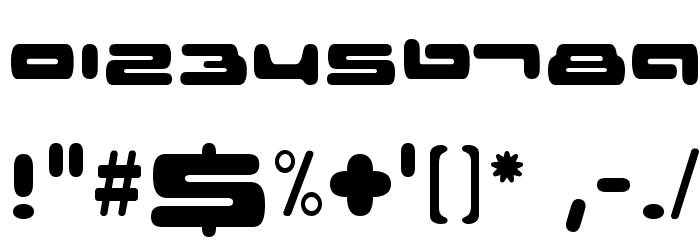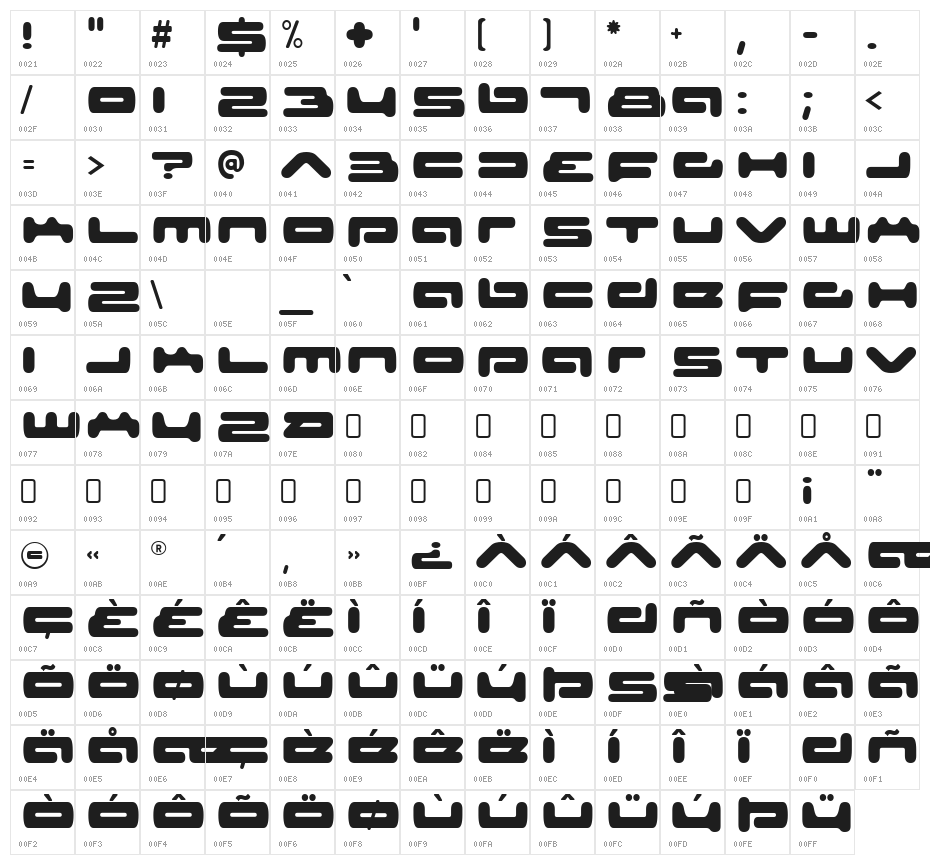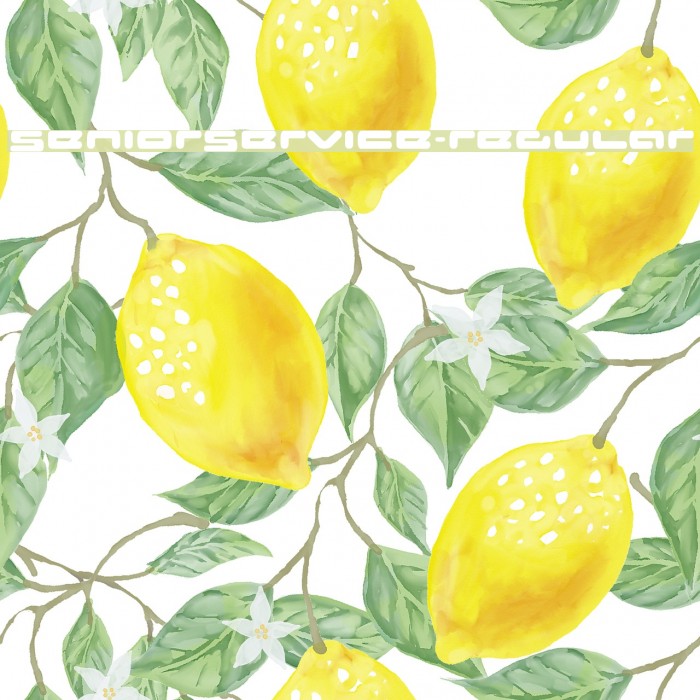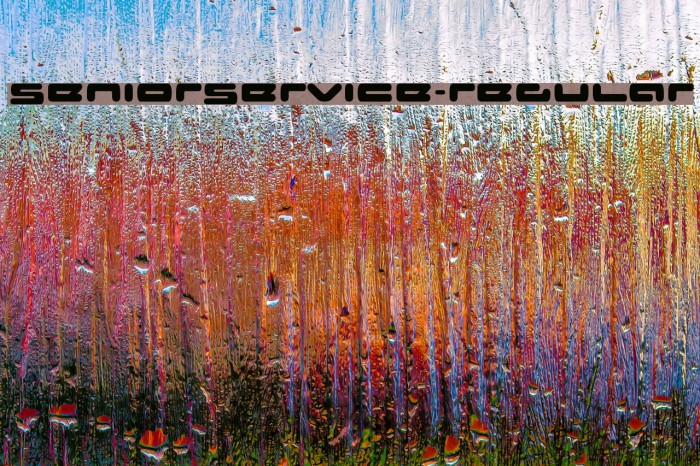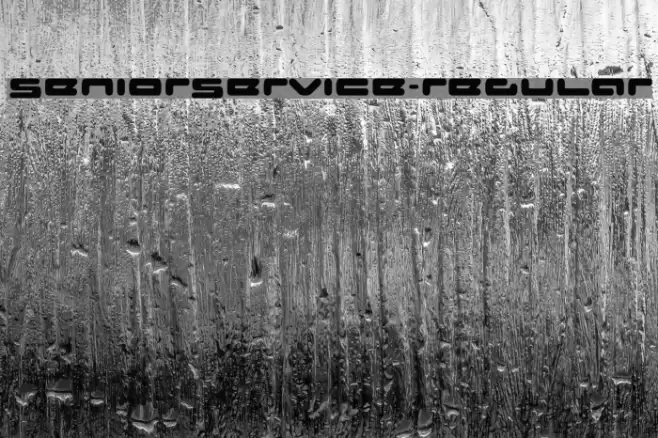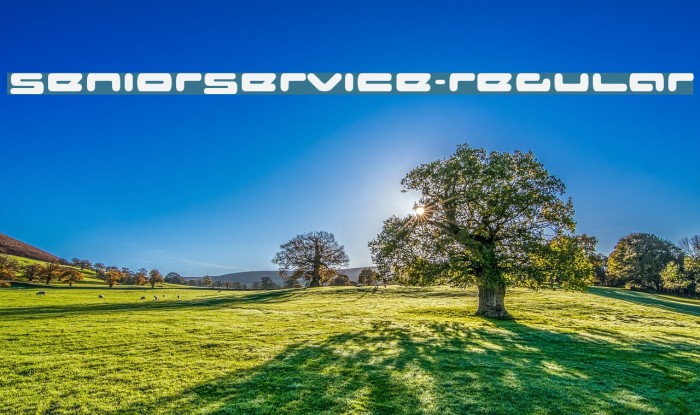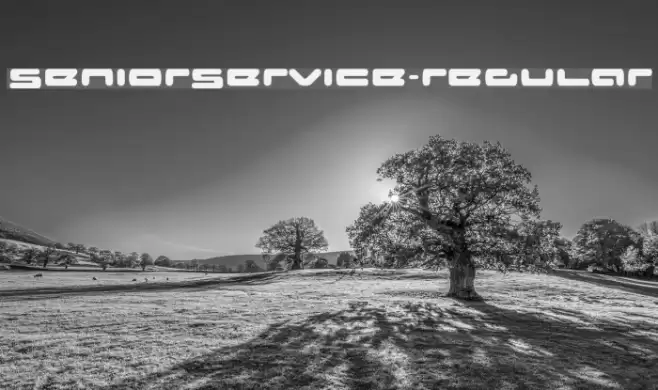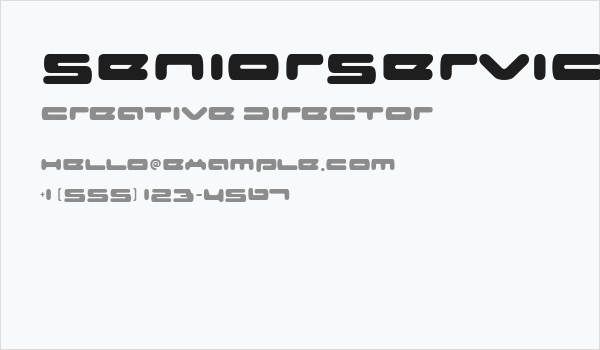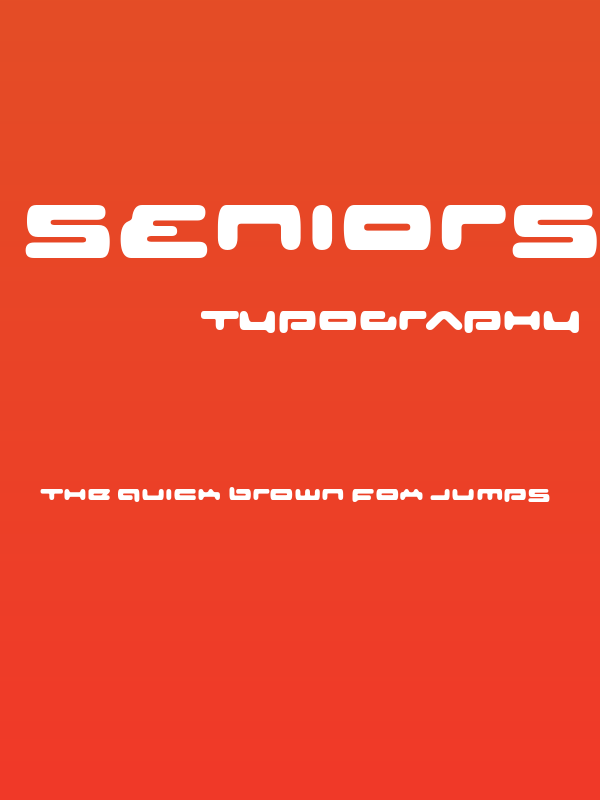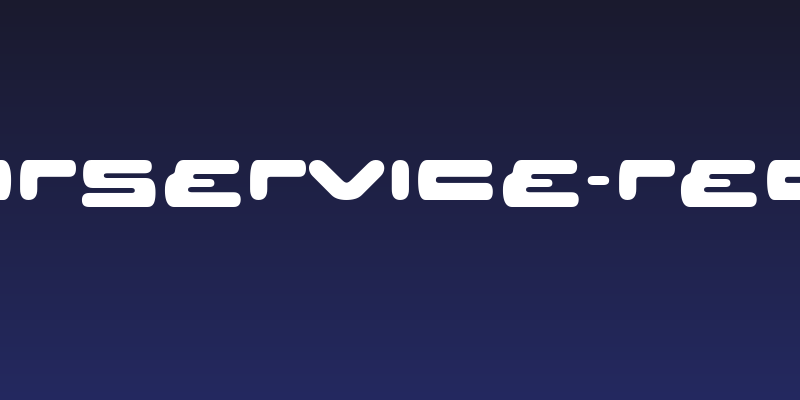
SeniorService-Regular Font
SeniorService-Regular Description
This font features a futuristic and geometric design with a bold and solid appearance. The characters are constructed with rounded edges and consistent stroke thickness, giving it a modern and tech-inspired look. The uppercase and lowercase letters maintain a uniform style, with the lowercase mirroring the uppercase in form but slightly smaller in size. Numbers and special characters are designed to match the overall aesthetic, ensuring a cohesive appearance across all glyphs. The font's unique style makes it stand out, ideal for projects that require a contemporary and innovative touch.
Proposed ProjectsIdeal for technology branding, sci-fi themed designs, video game graphics, and modern advertising.